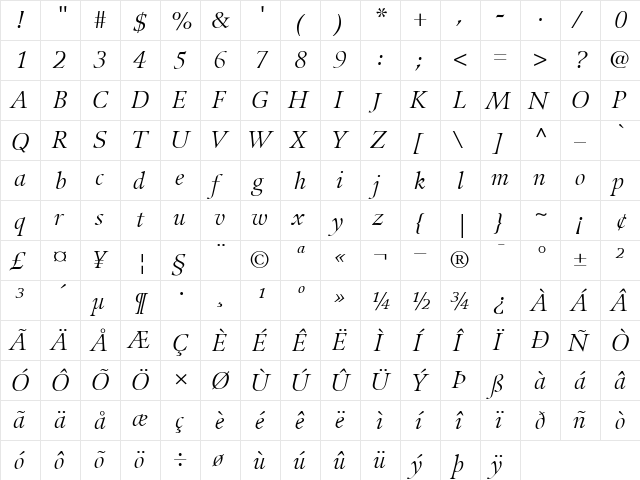
Guardi56 RomanItalic
Design Context for Guardi56 Typeface
Guardi56 is a composed and adaptable typeface that performs quietly and consistently across a wide range of design contexts. Its italic angle brings a sense of urgency and motion to the letterforms.
Pro Tip: Use Guardi56 for emphasis, pull quotes, and subheadings where its slanted energy can add rhythm to the layout.